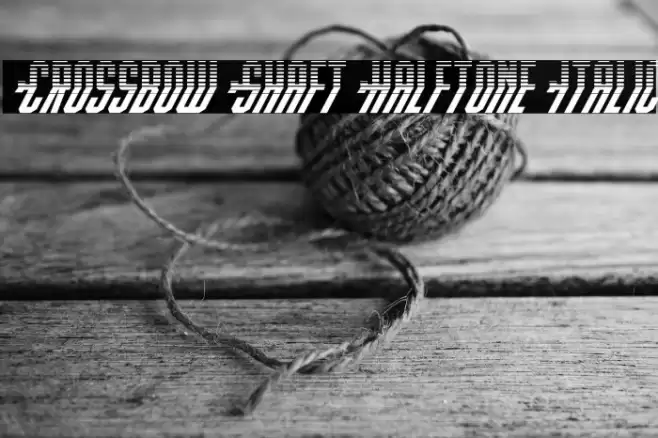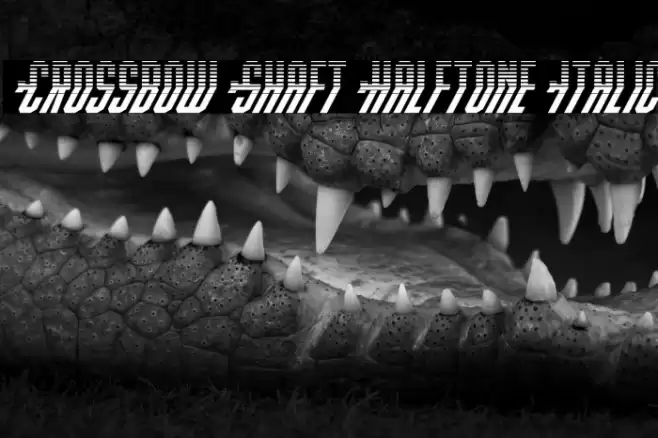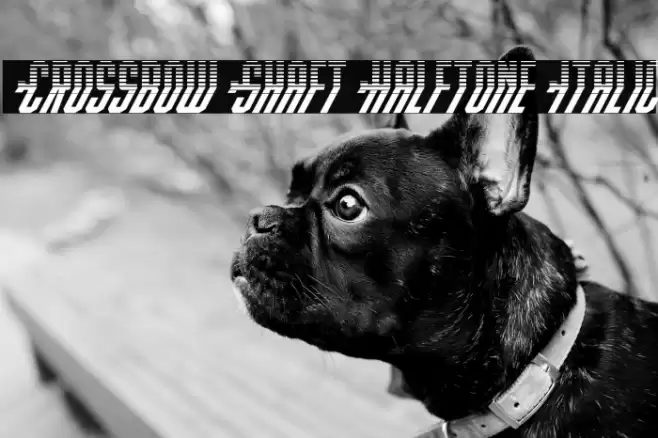
Crossbow Shaft Halftone Italic Font
Crossbow Shaft Halftone Italic Description
This font features a bold, italicized style with a unique halftone effect that gives it a dynamic and modern appearance. The characters are designed with horizontal lines that create a sense of movement and depth, making it stand out in any design. The uppercase and lowercase letters maintain a consistent style, with sharp angles and a slightly condensed form. The numbers and special characters follow the same design principles, ensuring a cohesive look across all elements. This font is ideal for projects that require a bold statement and a contemporary feel.
A bold, italicized font with a halftone effect and dynamic, modern style from Regular fonts.
- Proposed Projects: Ideal for posters, headlines, branding, and any design that requires a bold, modern statement.